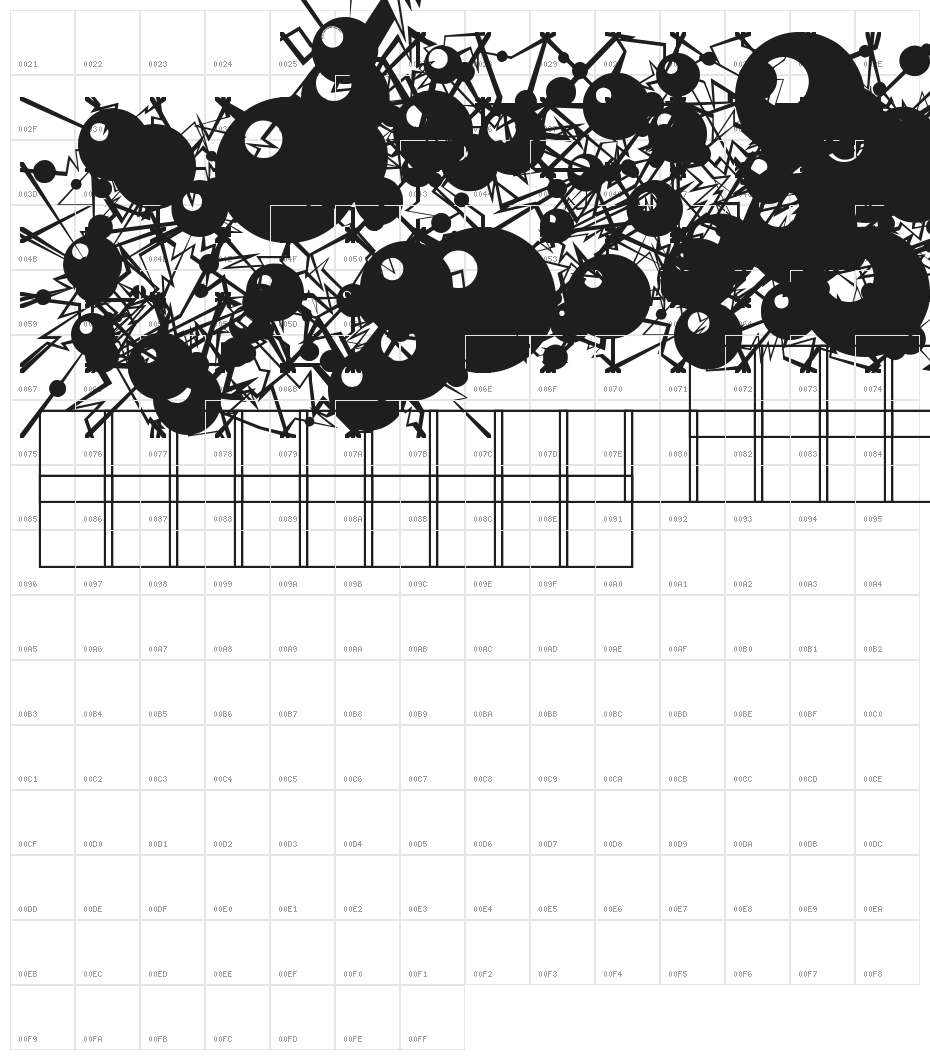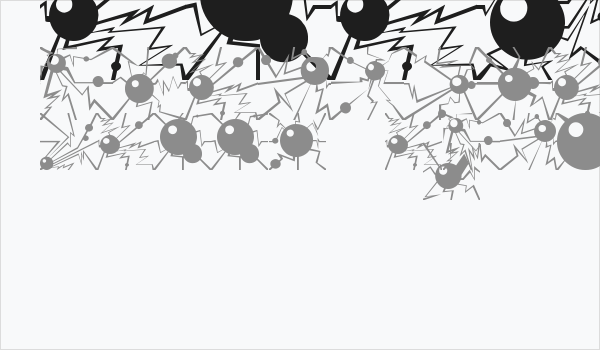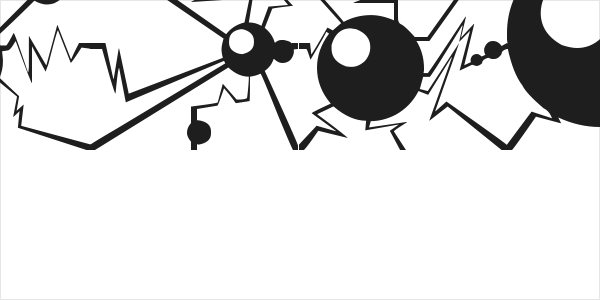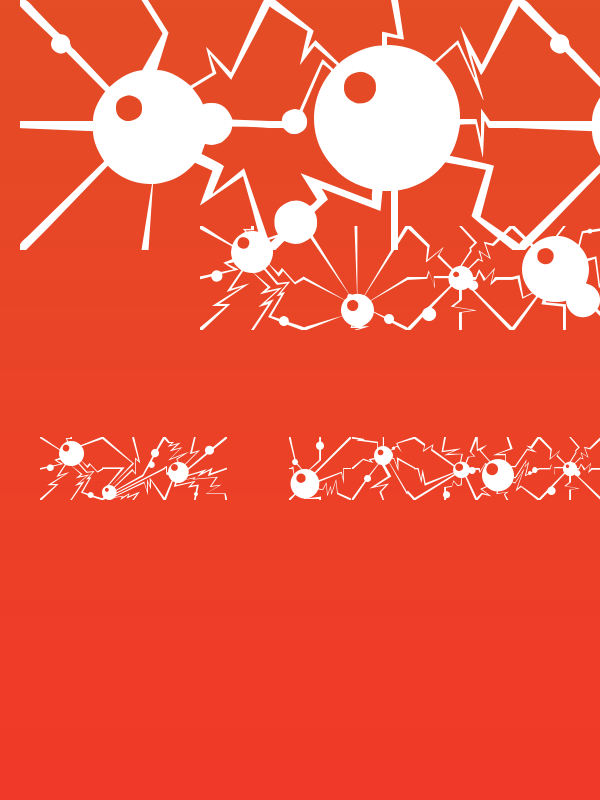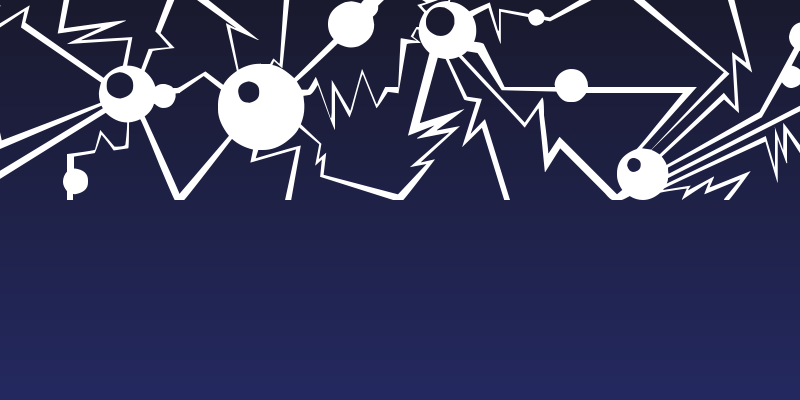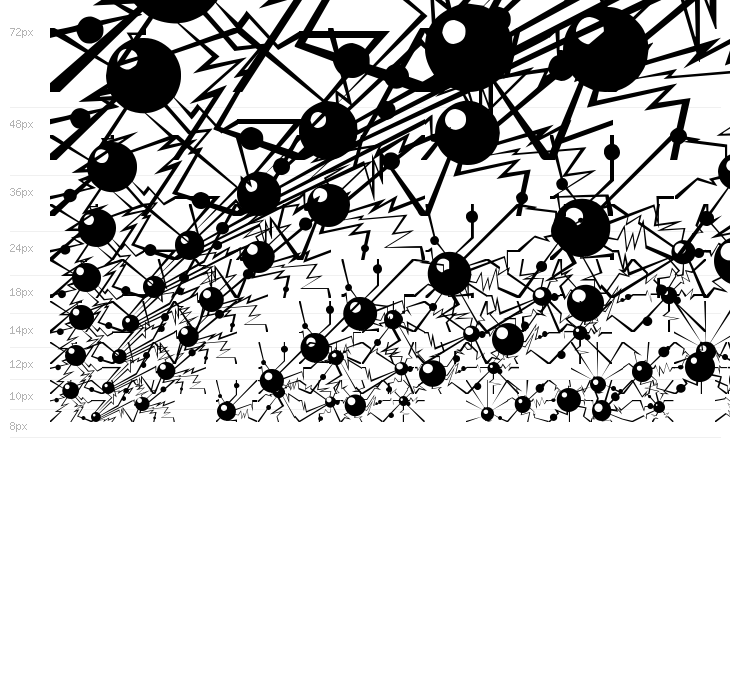
electricsphere Font
electricsphere Description
A highly decorative and abstract font composed of circular shapes with radiating lines and jagged, electric-like accents, creating a dynamic and energetic appearance. Each character is unique and visually complex, making legibility secondary to visual impact.
| Overall Style | Decorative, Abstract, Futuristic |
| Use Case | Logos, Headlines, Posters, Artistic projects |
| Proposed Projects | Posters, album covers, science fiction titles, event branding, digital art, experimental design. |